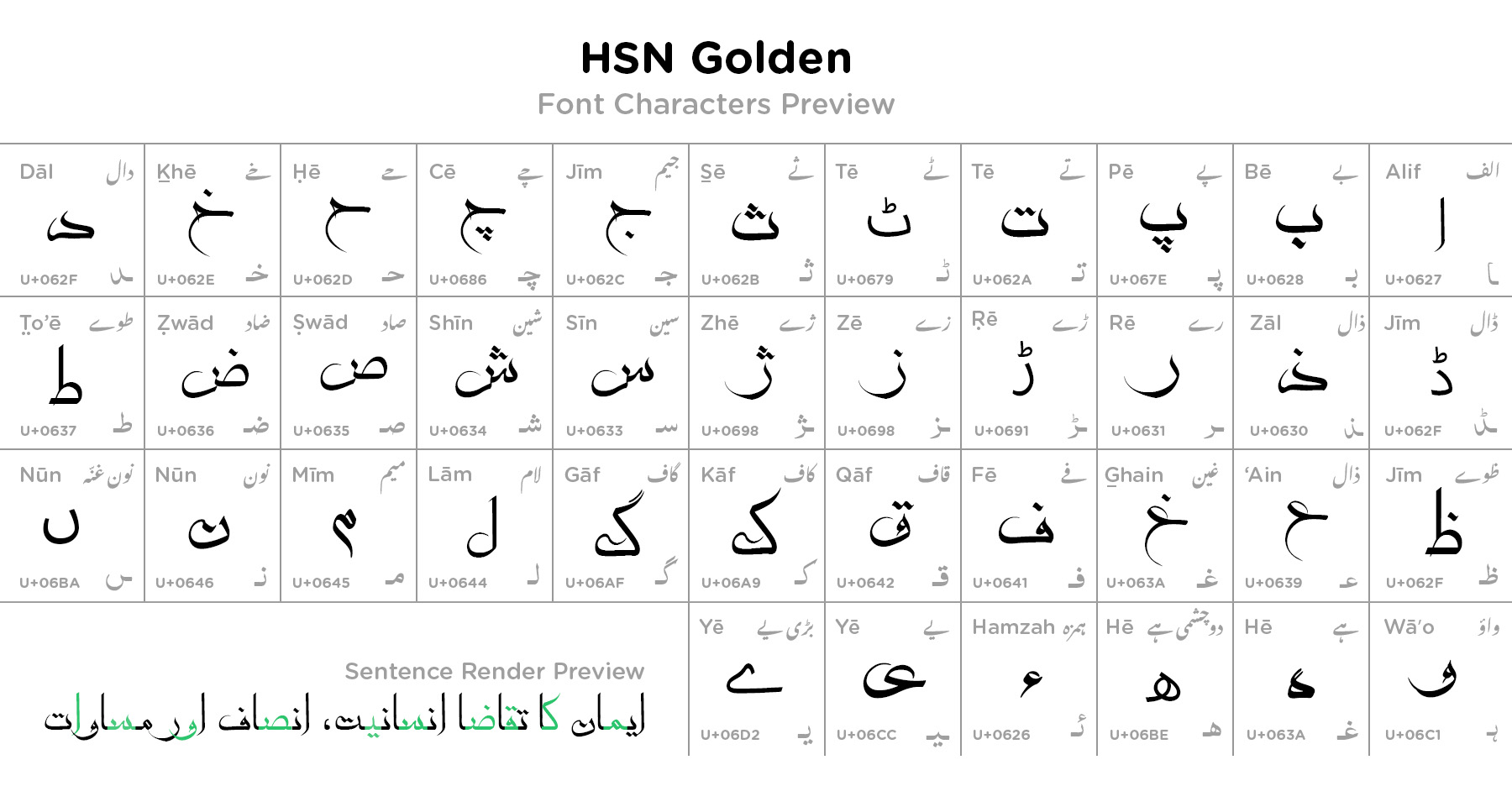
HSN Golden is a stylish and elegant Arabic script font. It has a refined and sophisticated appearance that is characterized by smooth curves and a fluid, cursive style. The font features a balance between modern aesthetics and traditional calligraphic elements. It has a glyph count of 226. The font maintains an organic, rounded shape with gentle curves and wide spacing between letters that allows for better legibility at even smaller sizes. It has a mix of thick and thin strokes that is typical for calligraphic styles. If we look at it, the horizontal strokes are thicker, and the vertical strokes are thinner. This variation adds a dynamic and artistic quality to the font. The graceful design makes HSN Golden ideal for wedding invitations, branding, logos, posters, promotional materials, artistic projects, traditional artworks, and more.